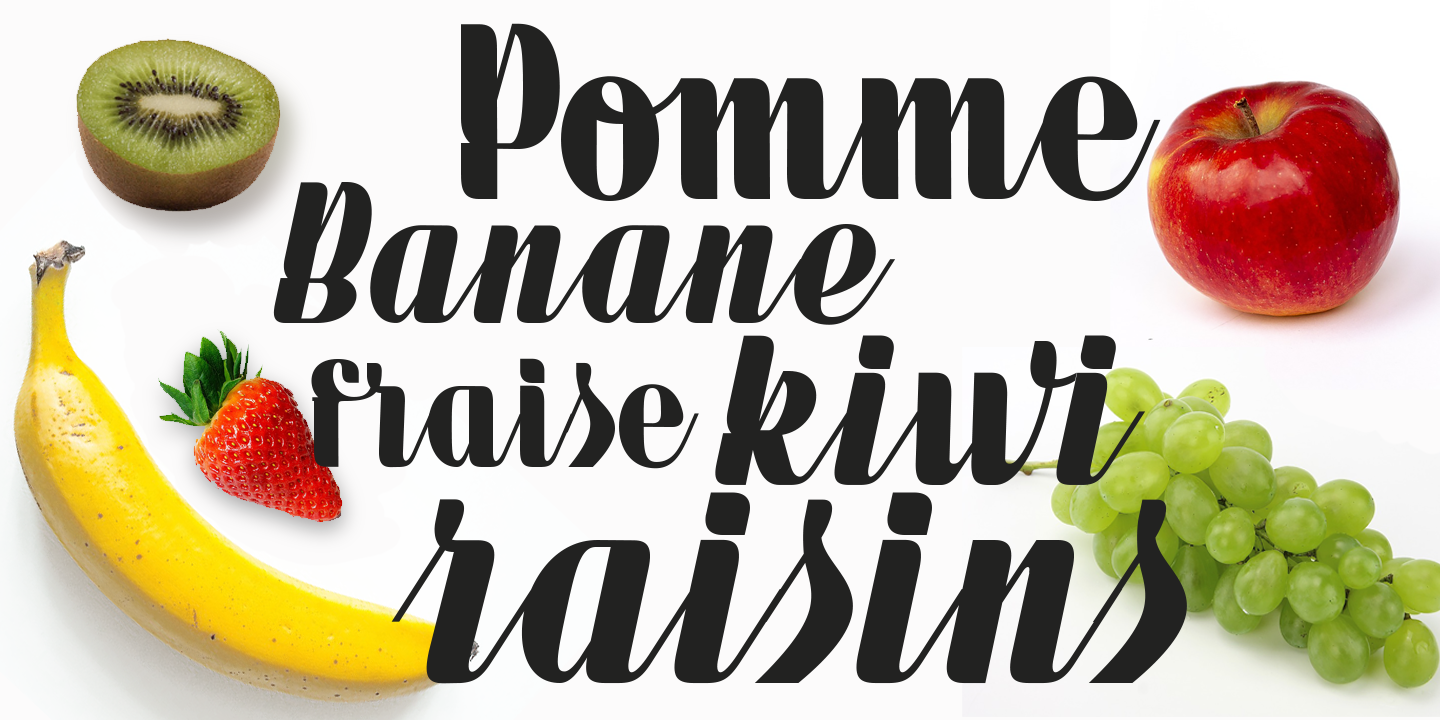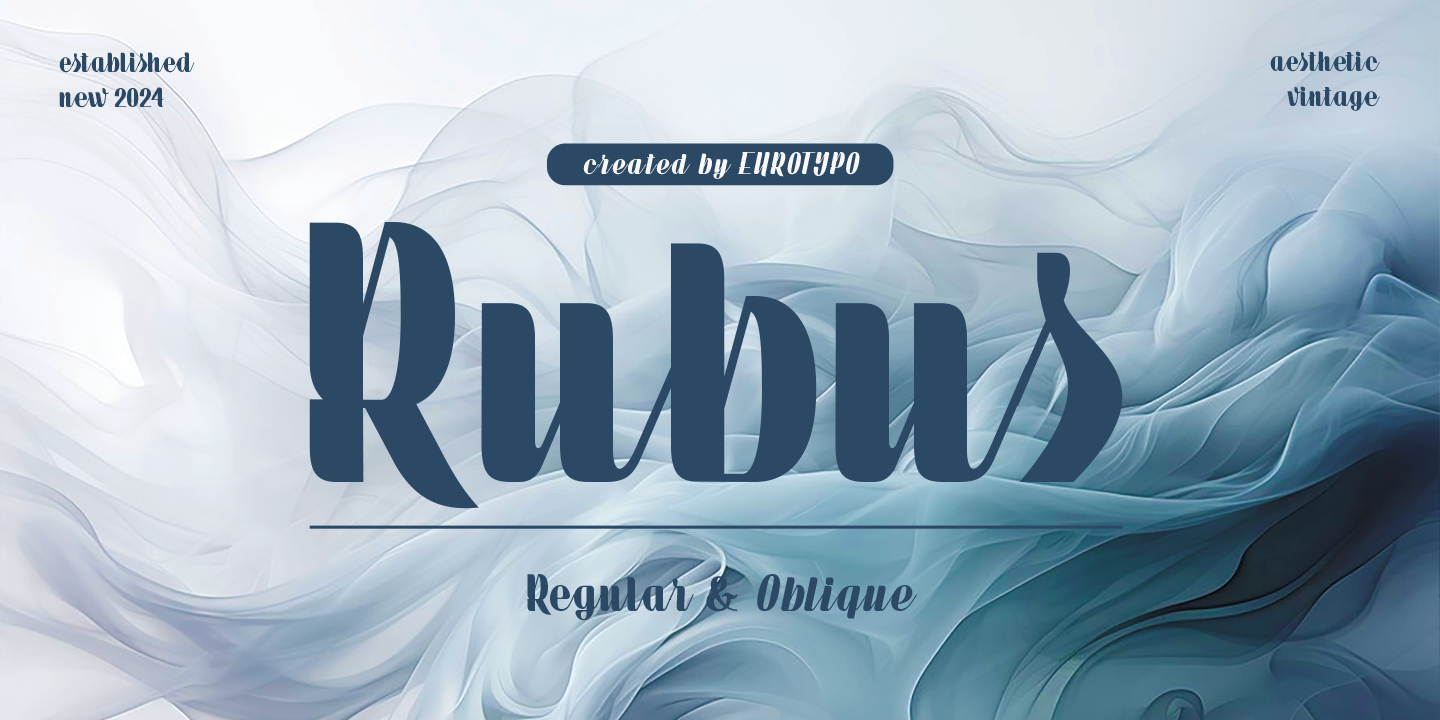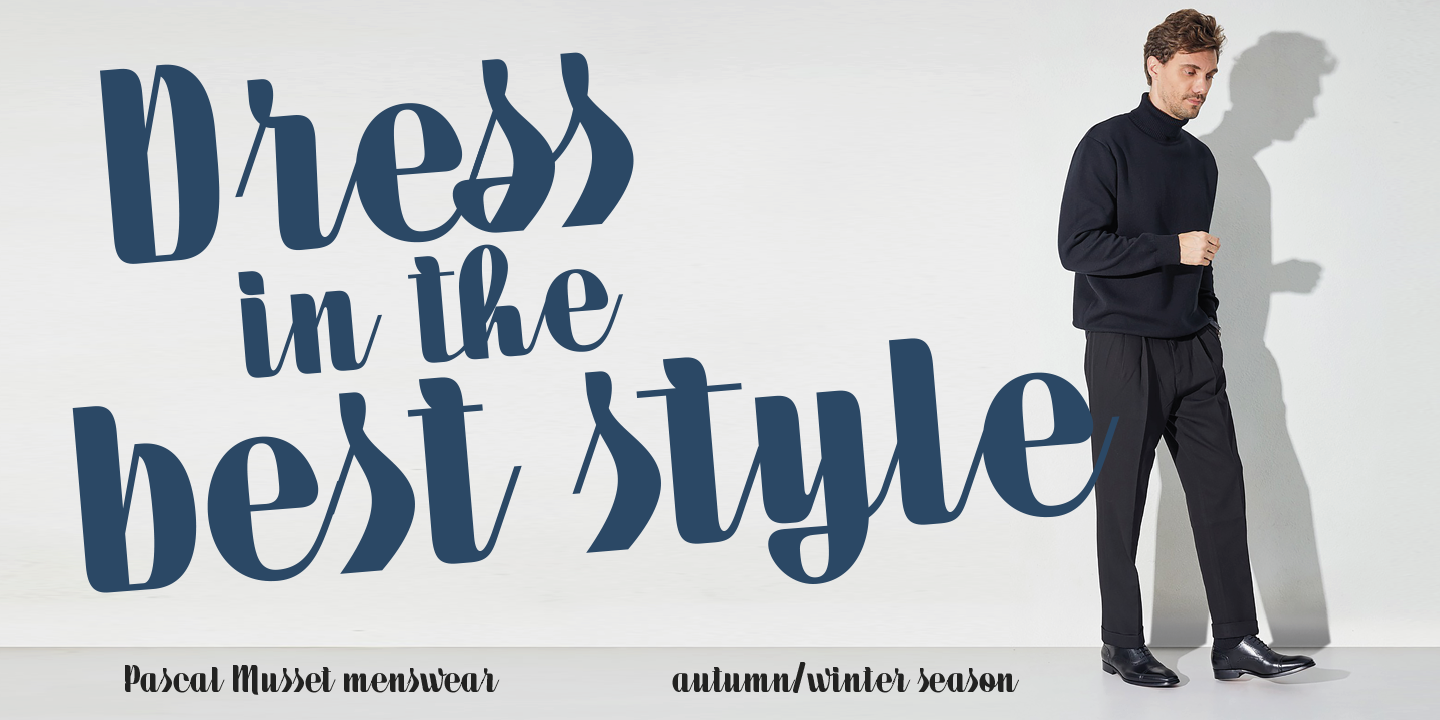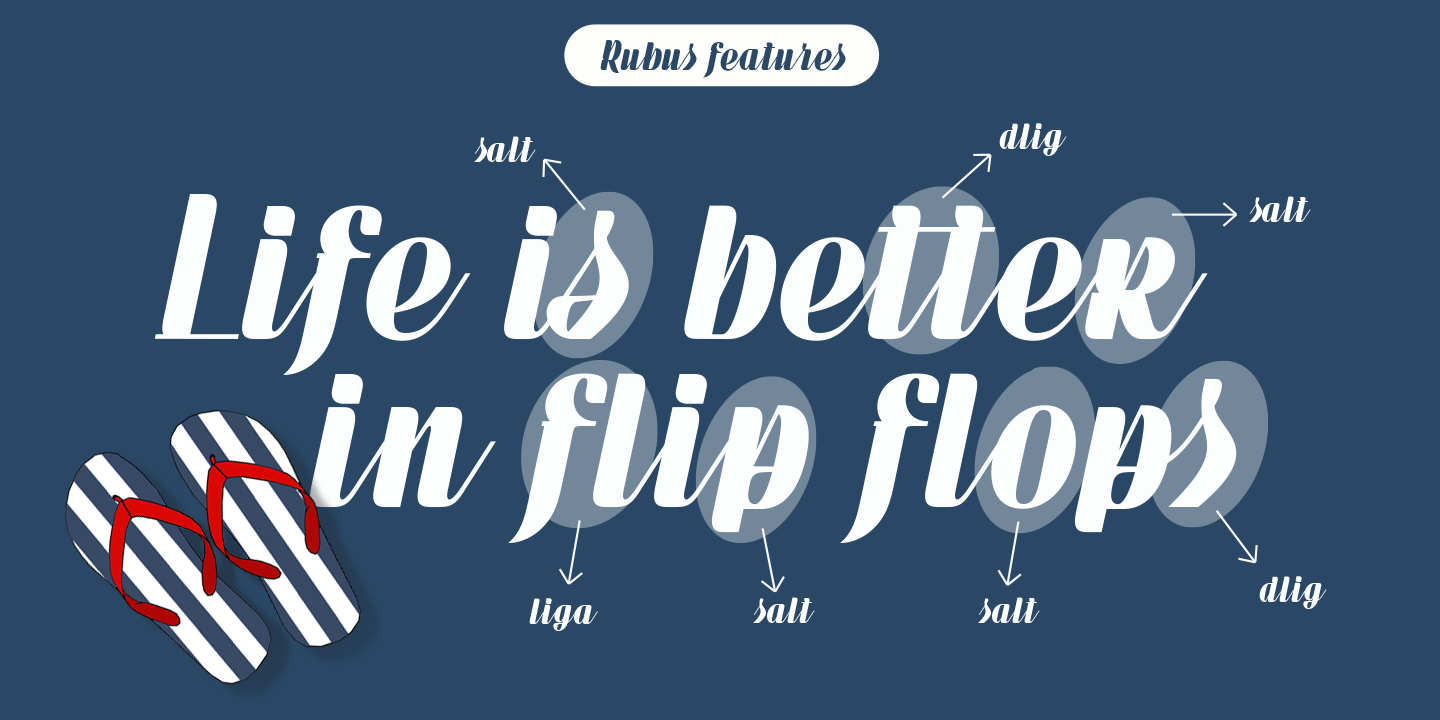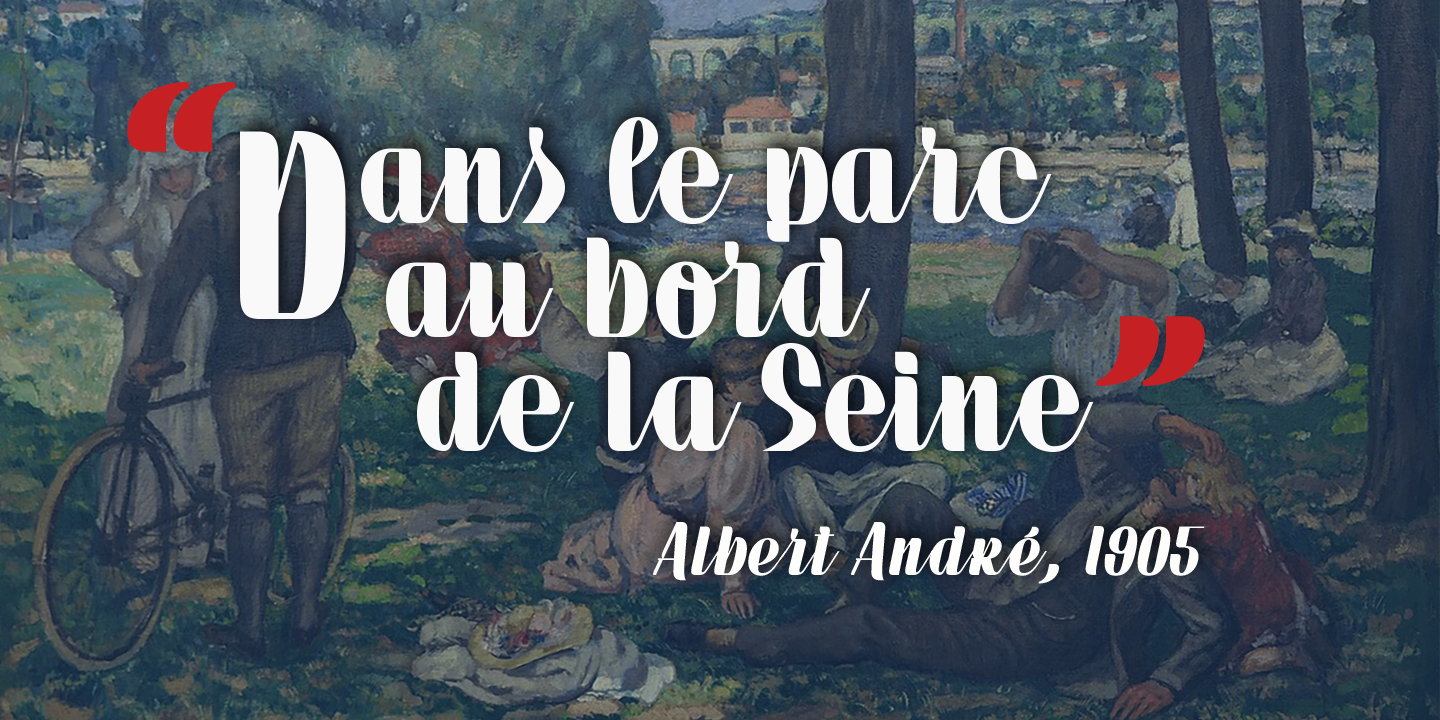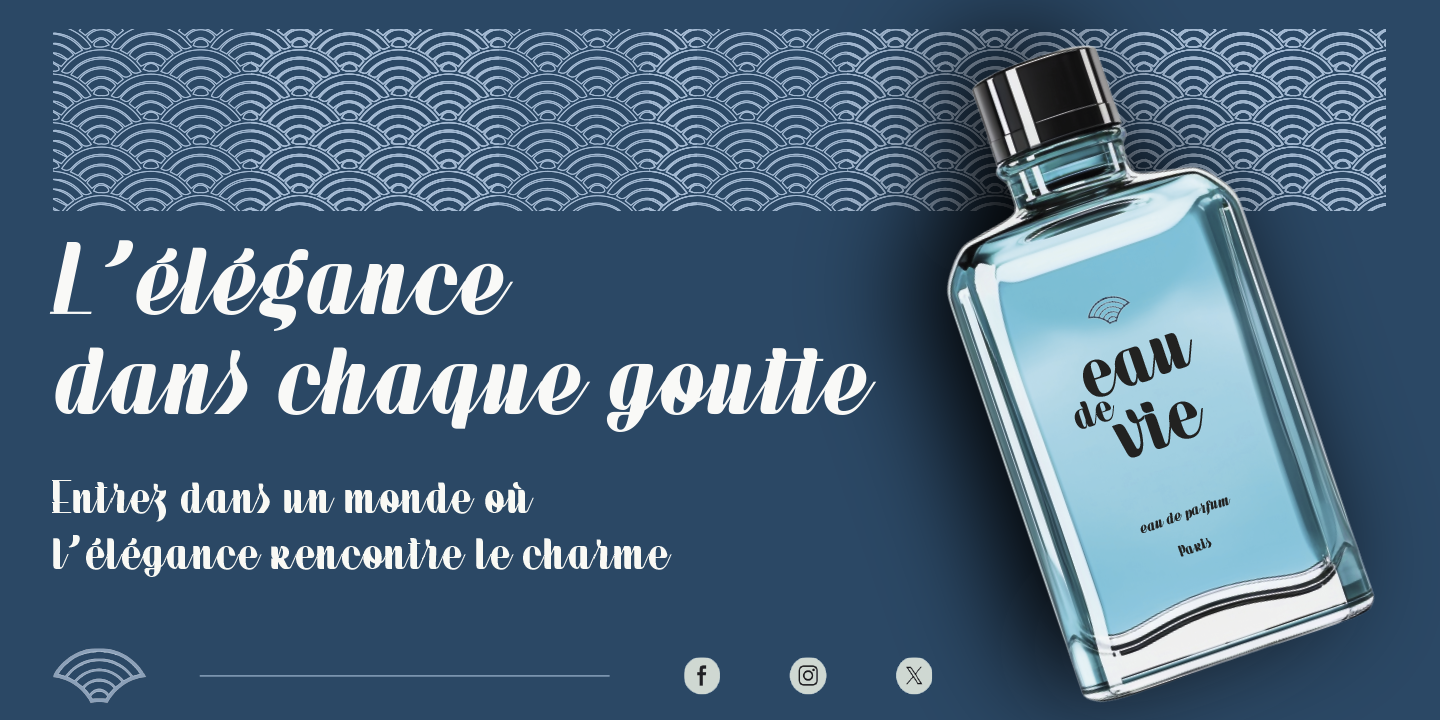
Rubus
A Bold Mid-Century Retro Font
Dive into the universe of Rubus, Regular and Normal, where vintage meets a touch of contemporary elegance in a bold and playful typeface. Inspired by mid-century design, Rubus adds vibrant retro nostalgia to any creation. Whether you're working on a logo, designing a striking advertisement, or looking to put a special spin on a brand identity, this font encourages you to be creative and enjoy the process.
Creative Alternates & Versatile Usage
With a variety of alternates and sophisticated ligatures, Rubus opens up endless creative possibilities. Its bold lines add character to each letter, making each word pop with warmth and authenticity. This font is ideal for multiple applications: posters, logos, business cards, banners, and other design uses.